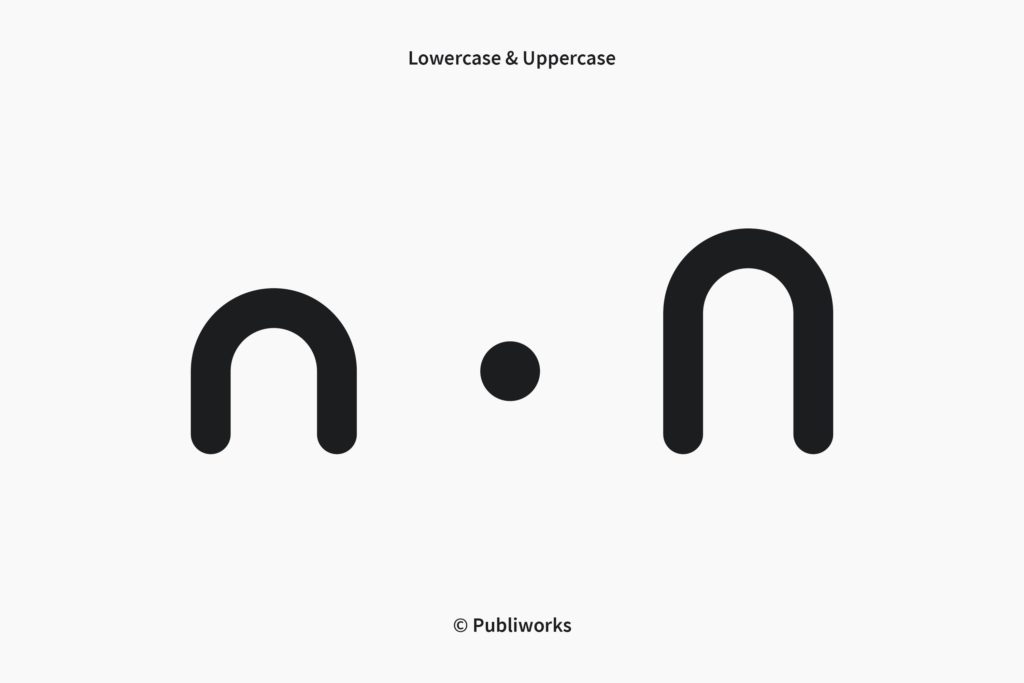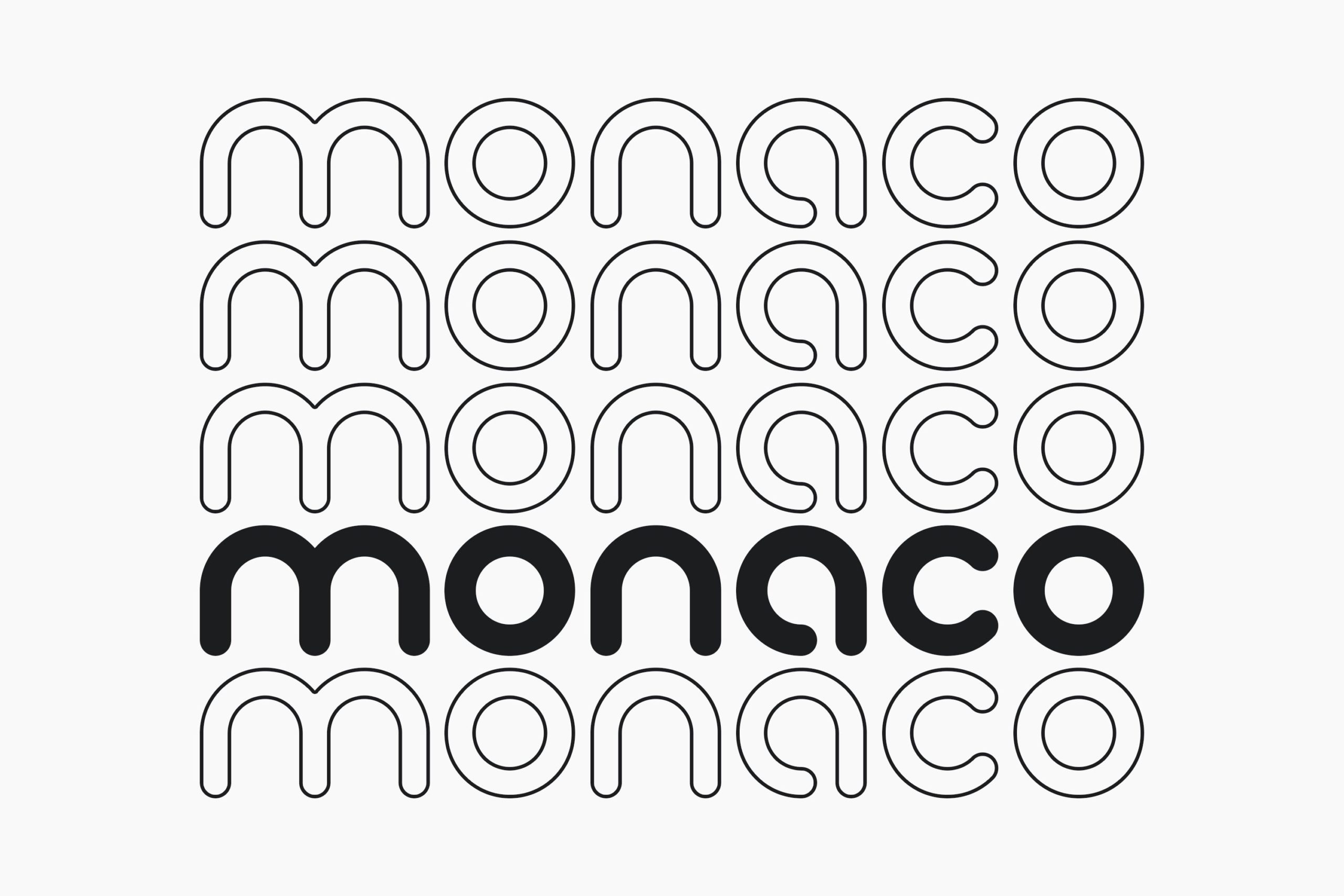
Anita Geometric Rounded Font
Anita Geometric Rounded Font - Perfect for a sleek, modern design. Unleash your creativity with our geometric, rounded fonts.
Unleash your creativity with our geometric, rounded fonts. Perfect for a sleek, modern design.
Anita PW Geometric & Rounded Font by Publiworks on creativemarket
Unleash your creativity with our geometric, rounded fonts. Perfect for a sleek, modern design.
Anita Geometric & Rounded Font Publiworks
Perfect for a sleek, modern design. Unleash your creativity with our geometric, rounded fonts.
Anita Geometric & Rounded Font Publiworks
Perfect for a sleek, modern design. Unleash your creativity with our geometric, rounded fonts.
Unleash your creativity with our geometric, rounded fonts. Perfect for a sleek, modern design.
Anita PW Geometric & Rounded Font on Inspirationde Geometric
Perfect for a sleek, modern design. Unleash your creativity with our geometric, rounded fonts.
Anita Geometric & Rounded Font Publiworks
Unleash your creativity with our geometric, rounded fonts. Perfect for a sleek, modern design.
Perfect For A Sleek, Modern Design.
Unleash your creativity with our geometric, rounded fonts.